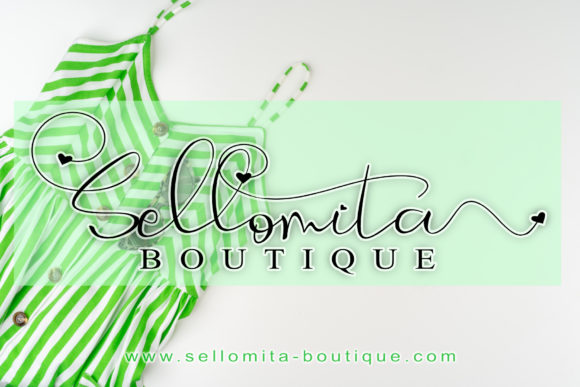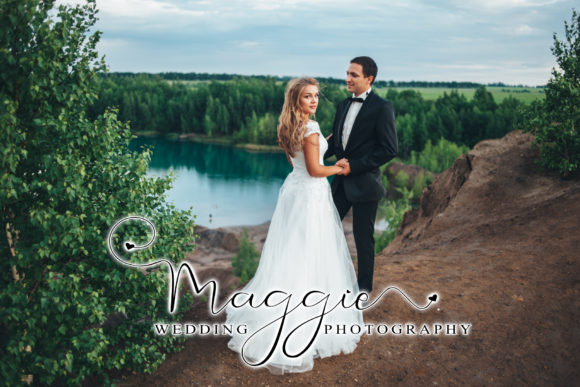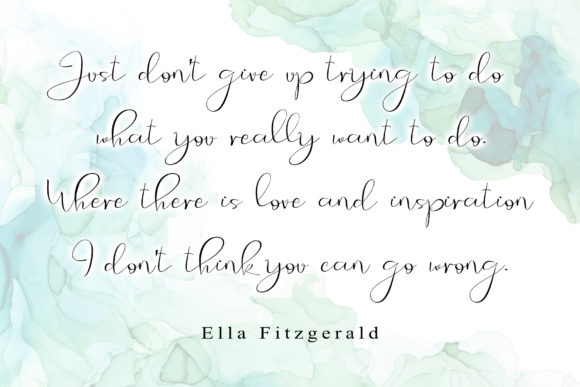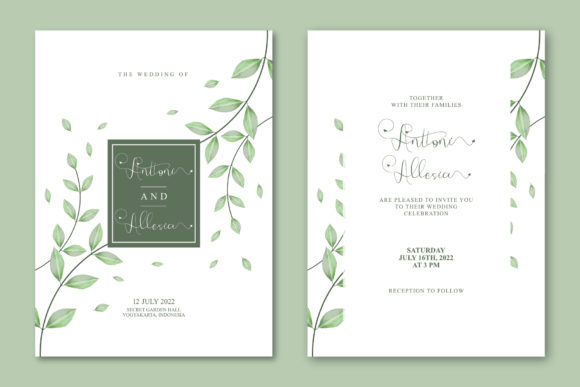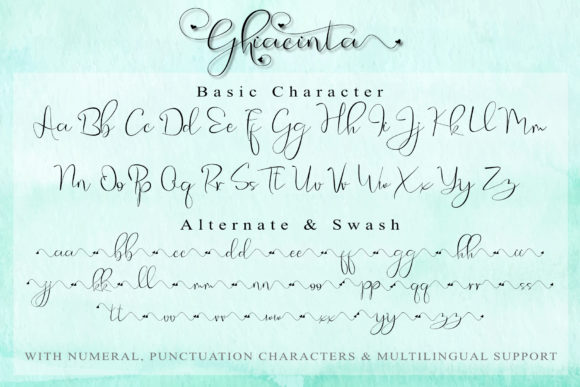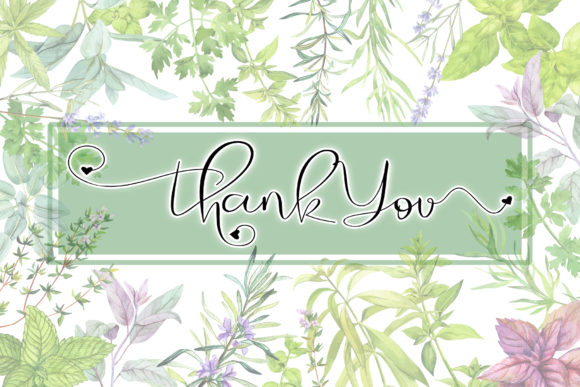
Ghiacinta Font: Elevate Your Designs with a Timeless Handwritten Style
In the world of typography, a font can make or break a design. For designers and crafters looking for a unique and versatile handwritten style, Ghiacinta Font is an excellent choice. This beautiful font is designed to add a touch of elegance and sophistication to any project, making it perfect for a wide range of applications.
What Makes Ghiacinta Font Special?
Ghiacinta is a flowing and timeless handwritten font that boasts a range of features that set it apart from other fonts. Here are just a few reasons why Ghiacinta Font should be your go-to choice for your next design project:
• PUA Encoded: Ghiacinta Font is PUA (Private Use Area) encoded, which means that you can access all of the glyphs and swashes with ease. This makes it simple to create stunning designs that are rich in detail and texture.
• Varying Baseline: The font features a varying baseline, which gives it a natural, handwritten feel that’s perfect for creating designs that look like they were written by hand.
• Smooth Lines: Ghiacinta Font has smooth, flowing lines that add a touch of elegance to any design. Whether you’re creating a logo, a poster, or a social media graphic, this font is sure to impress.
• Gorgeous Glyphs: The font comes with a range of gorgeous glyphs, including stunning alternates that allow you to add extra detail and texture to your designs.
The Benefits of Using Ghiacinta Font
So why should you choose Ghiacinta Font for your next design project? Here are just a few benefits of using this amazing font:
• Versatility: Ghiacinta Font is incredibly versatile, making it perfect for a wide range of design applications. Whether you’re creating a logo, a poster, a social media graphic, or a website, this font is sure to impress.
• Elegance: The font’s smooth lines, gorgeous glyphs, and varying baseline give it an elegant, sophisticated feel that’s perfect for creating designs that are both beautiful and effective.
• Easy to Use: Ghiacinta Font is PUA encoded, which makes it easy to access all of the glyphs and swashes. This means that you can focus on creating stunning designs, rather than getting bogged down in complicated font management.
How to Use Ghiacinta Font in Your Designs
So how can you use Ghiacinta Font in your designs? Here are a few ideas to get you started:
• Logos: Use Ghiacinta Font to create a stunning logo that’s both elegant and effective. The font’s smooth lines and gorgeous glyphs make it perfect for creating logos that are both beautiful and memorable.
• Posters: Create eye-catching posters with Ghiacinta Font. The font’s varying baseline and stunning alternates make it perfect for creating posters that are both visually appealing and easy to read.
• Social Media Graphics: Use Ghiacinta Font to create stunning social media graphics that are sure to grab attention. The font’s elegant, sophisticated feel makes it perfect for creating graphics that are both beautiful and effective.
• Websites: Use Ghiacinta Font to add a touch of elegance to your website. The font’s smooth lines and gorgeous glyphs make it perfect for creating website headers, titles, and other design elements that are both beautiful and effective.
In conclusion, Ghiacinta Font is an amazing handwritten font that’s perfect for designers and crafters looking for a unique and versatile style. With its PUA encoding, varying baseline, smooth lines, gorgeous glyphs, and stunning alternates, this font is sure to elevate your designs and add a touch of elegance and sophistication. So why wait? Download Ghiacinta Font today and start creating stunning designs that are sure to impress!